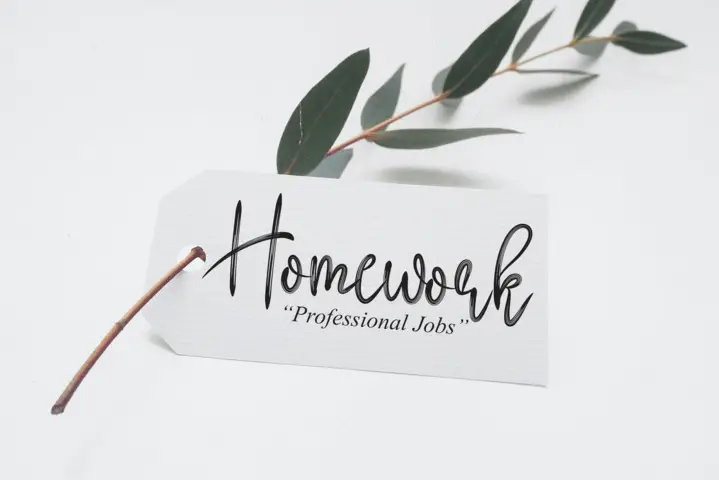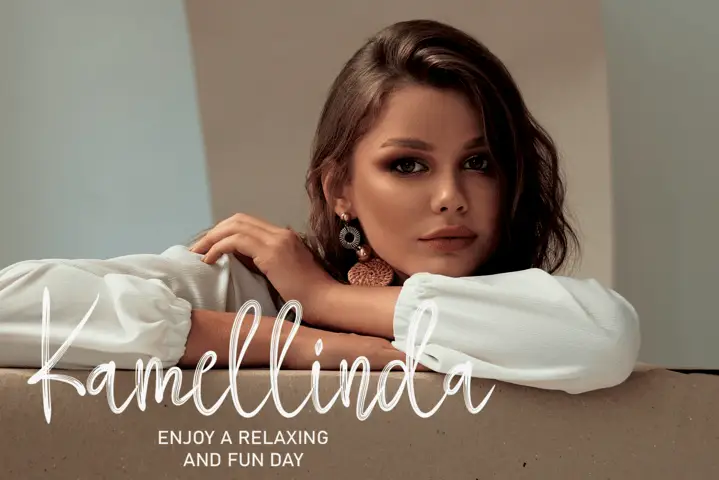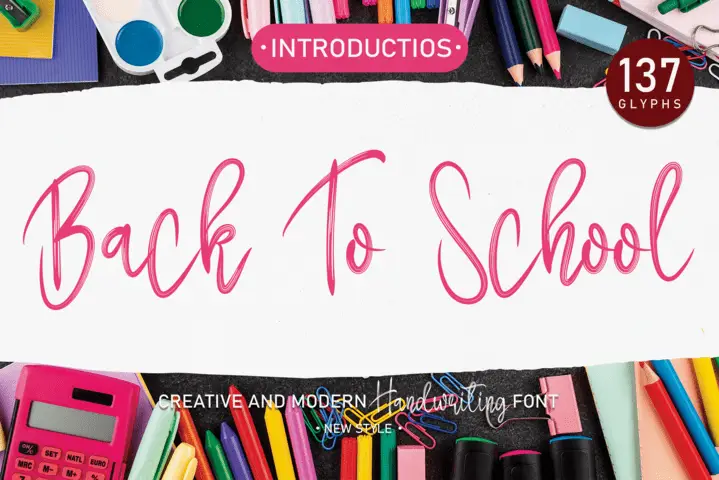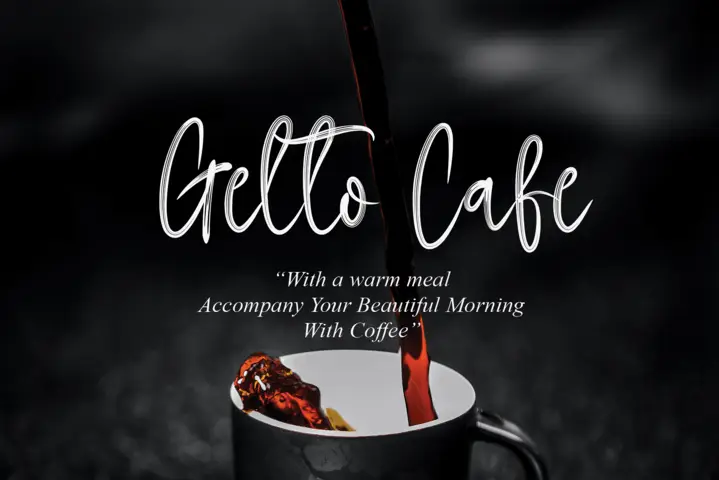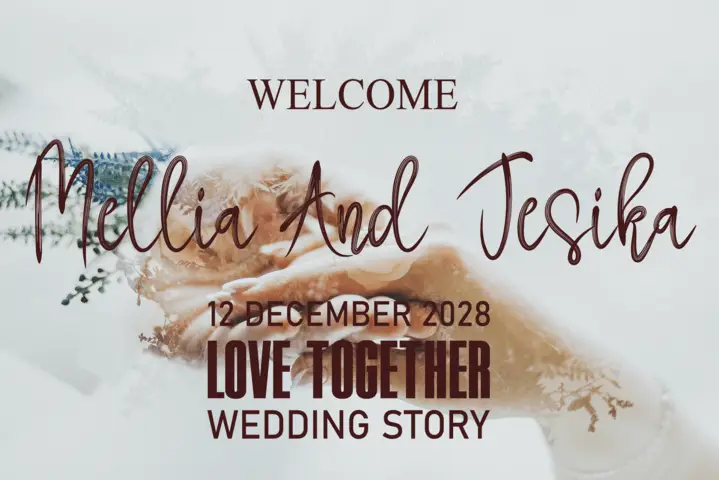
The Back To School Brush Font is a playful and dynamic typeface that captures the essence of creativity and learning. Perfect for educational themes, this font features a hand-drawn brush style that adds a personal touch to your designs.
- Unique brush lettering style
- Uppercase and lowercase letters
- Numerals and punctuation included
- Styles: Regular, Bold
- Ideal for school-themed projects, posters, and invitations.
- Great for branding, logos, and social media graphics.
- Use in both print and digital formats for a cohesive look.